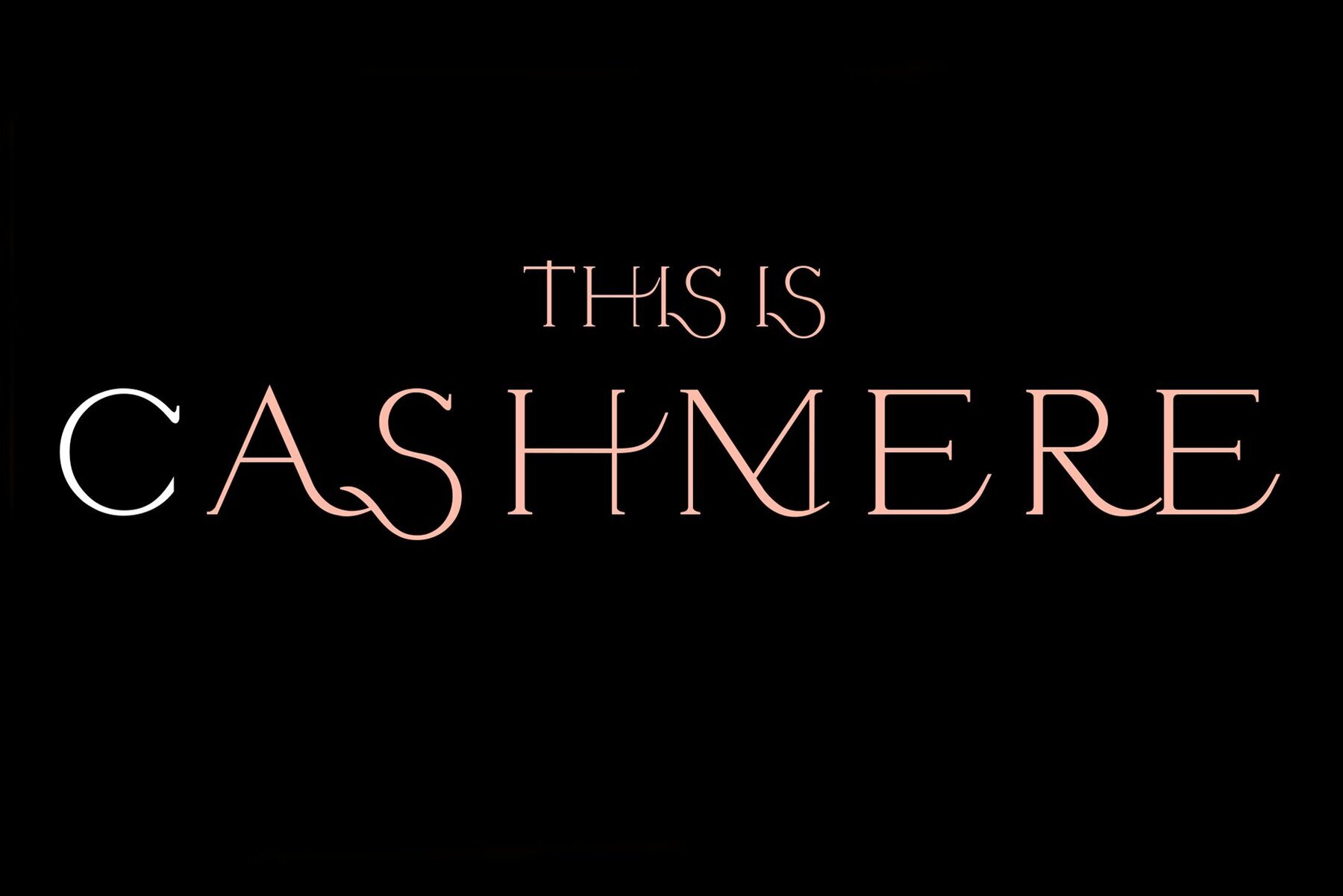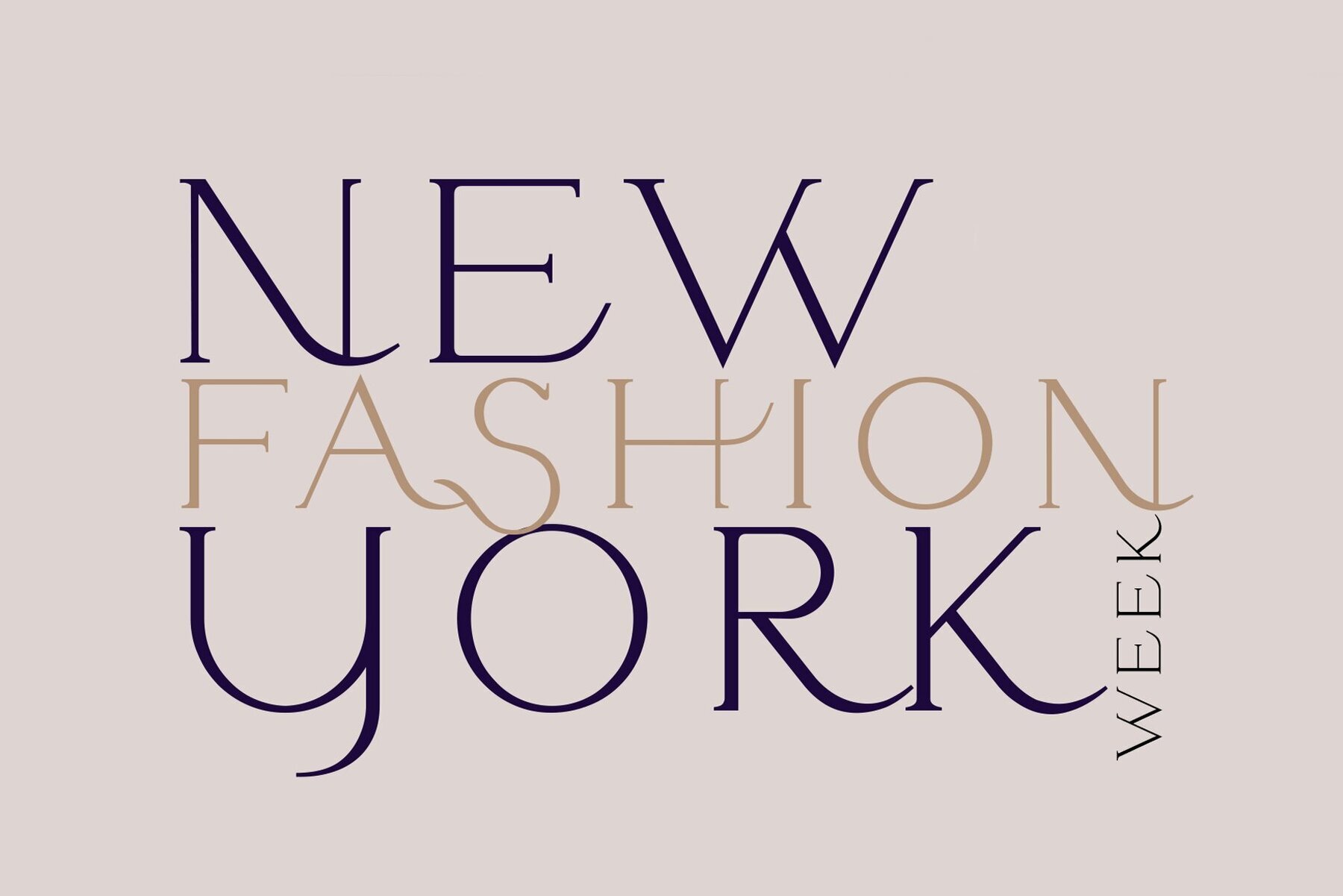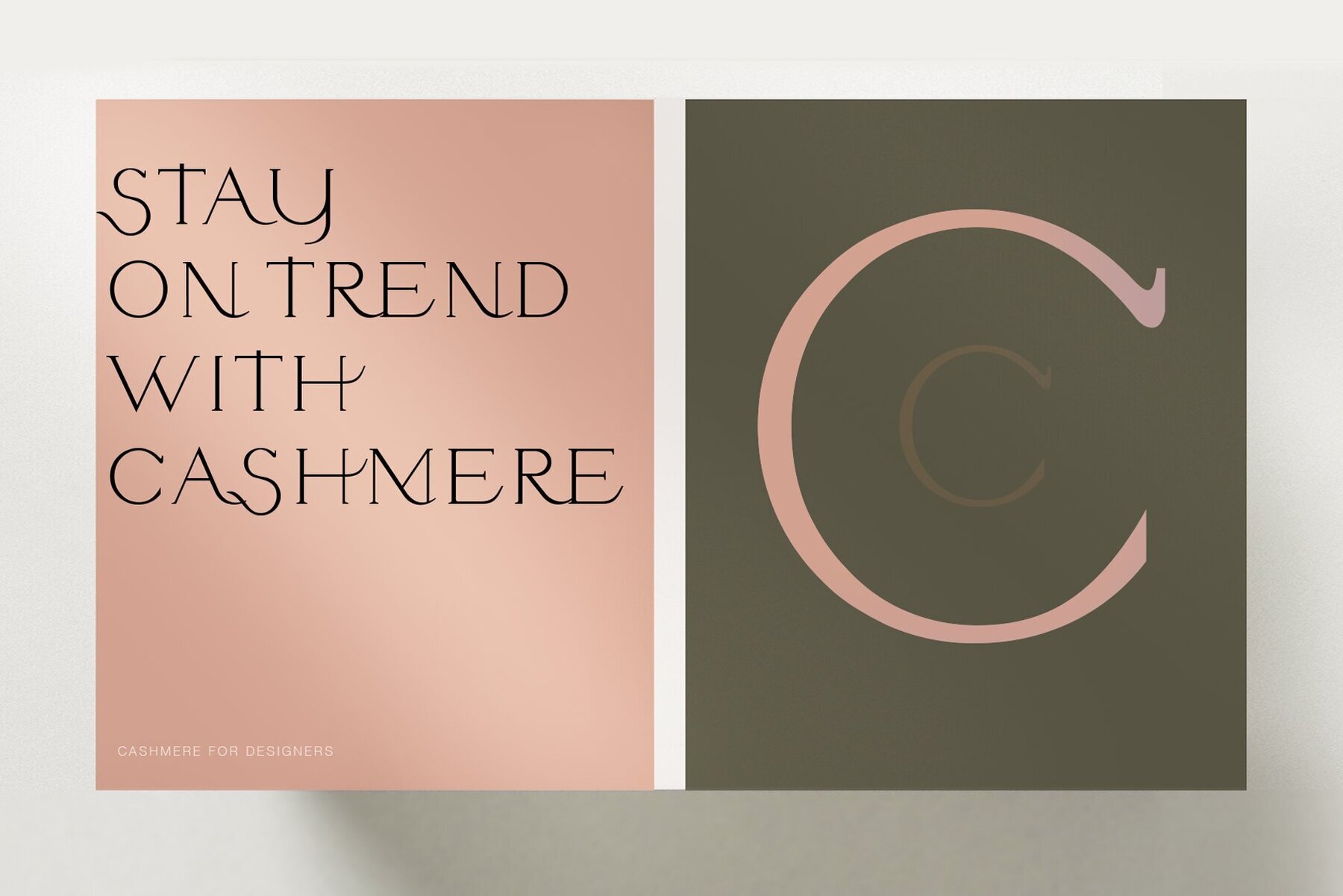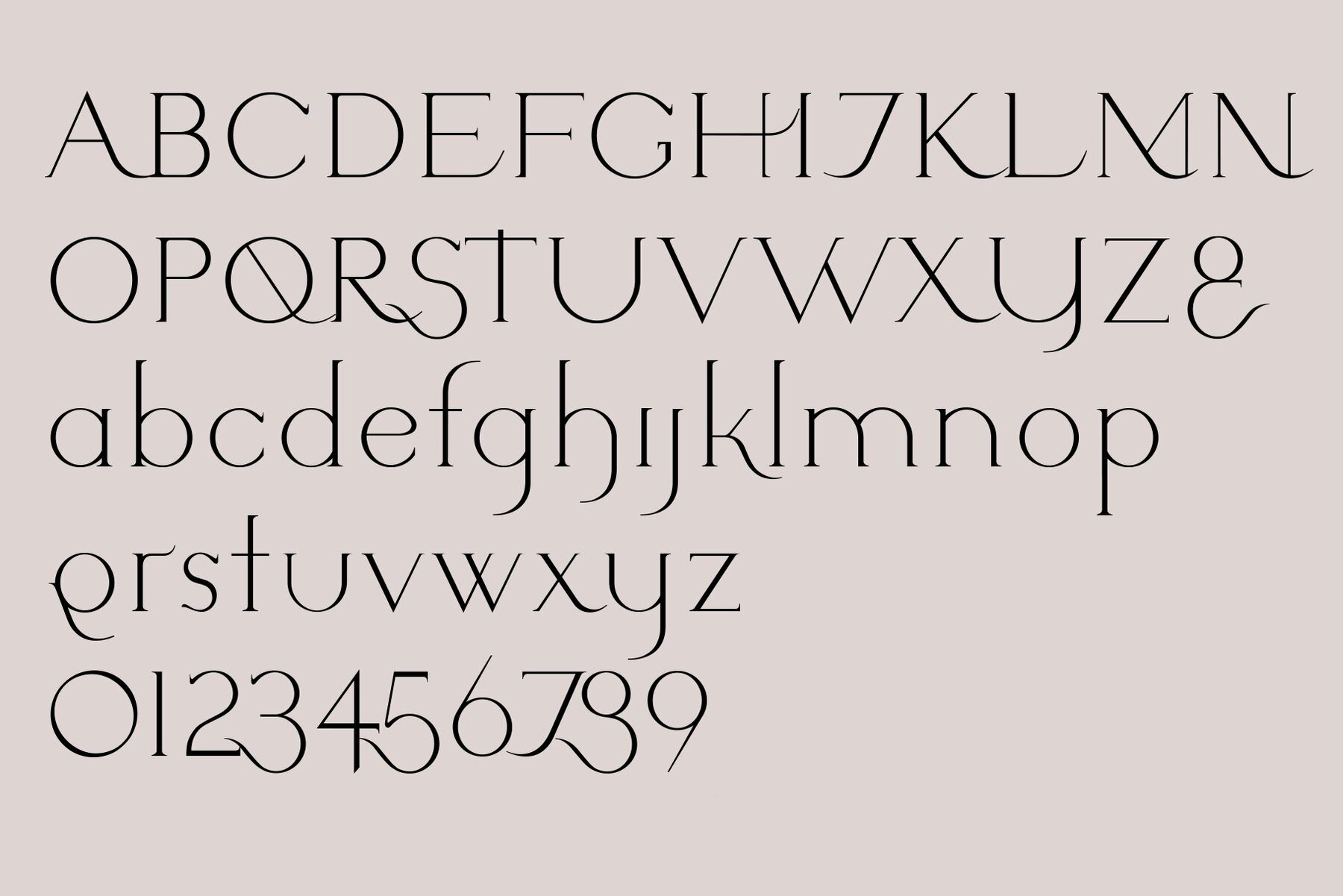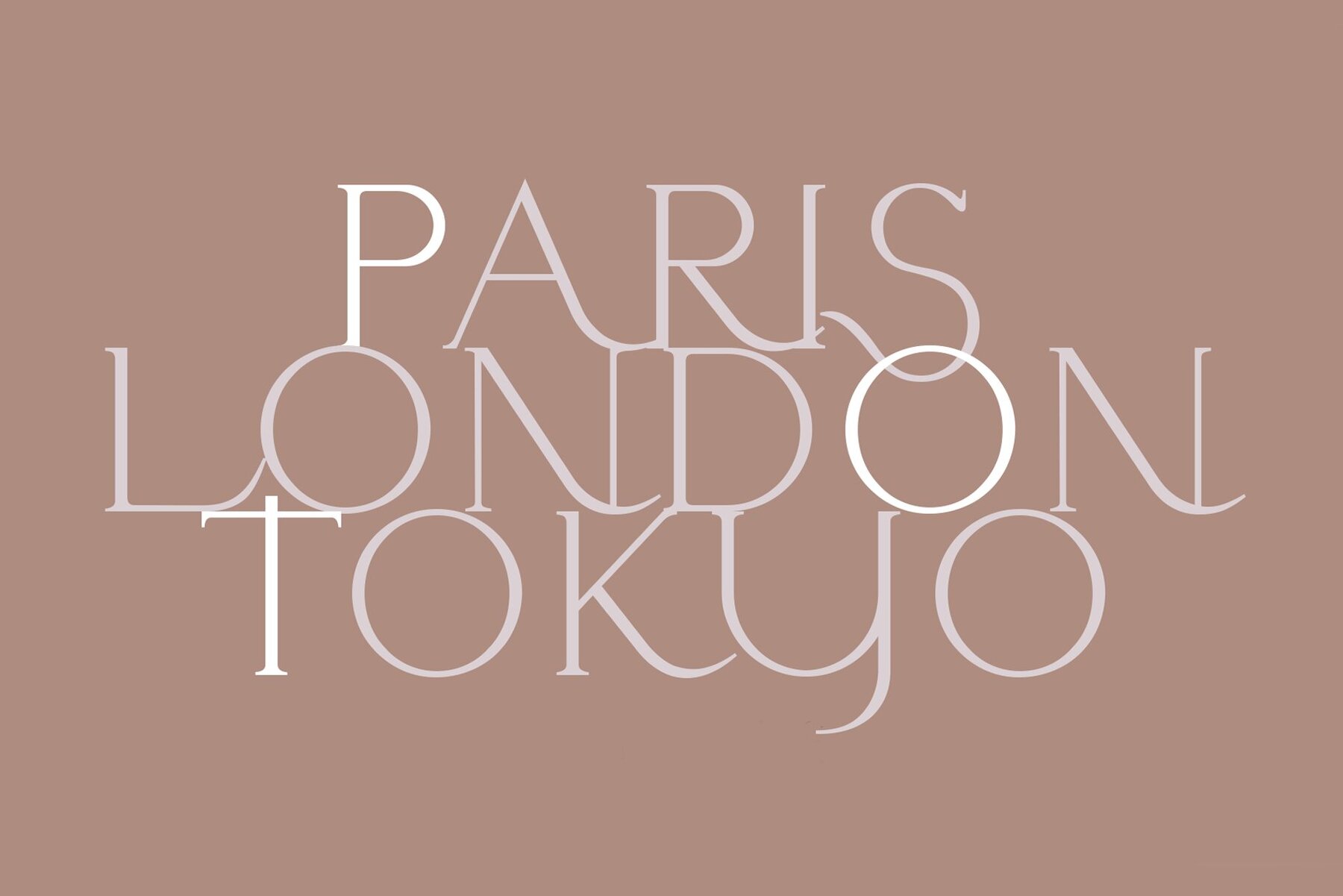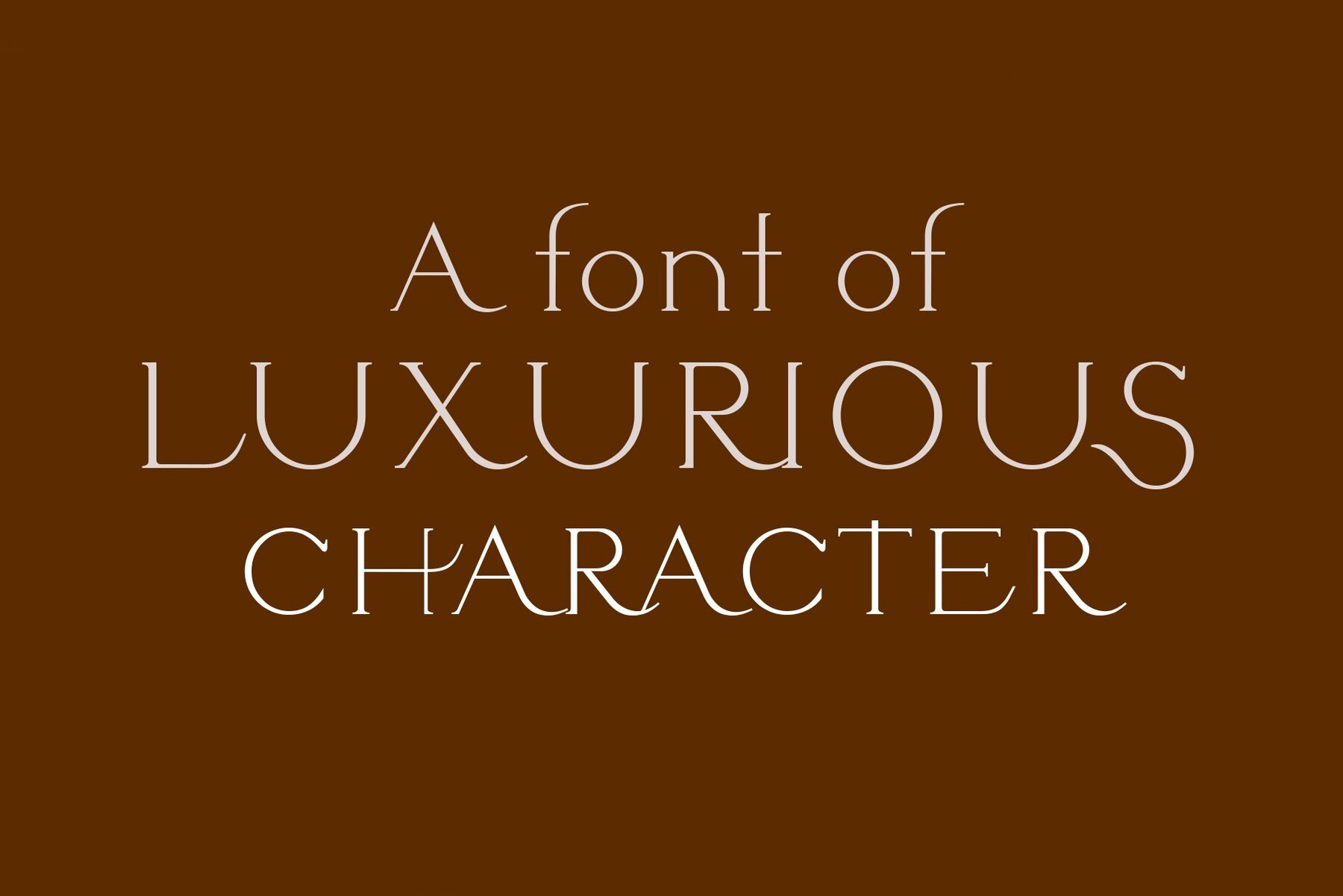
Cashmere Font
Cashmere Regular
Cashmere Medium
Cashmere is a beautifully expressive new font for designers from LostandFoundry. This typeface has the look and feel of a classic serif font, but combined with some fashionable, modern touches. Cashmere is a chic and stylish font that gives you a point of difference from other traditional serif fonts you might have in your library. Use it in your design projects - in headlines, logos, titles, weddings and luxury packaging designs. And online in websites, blogs, vlog titles, Youtube creator titles and social media post titles. Cashmere looks best in all caps, comes in 2 weights and supports French, German and other European languages.